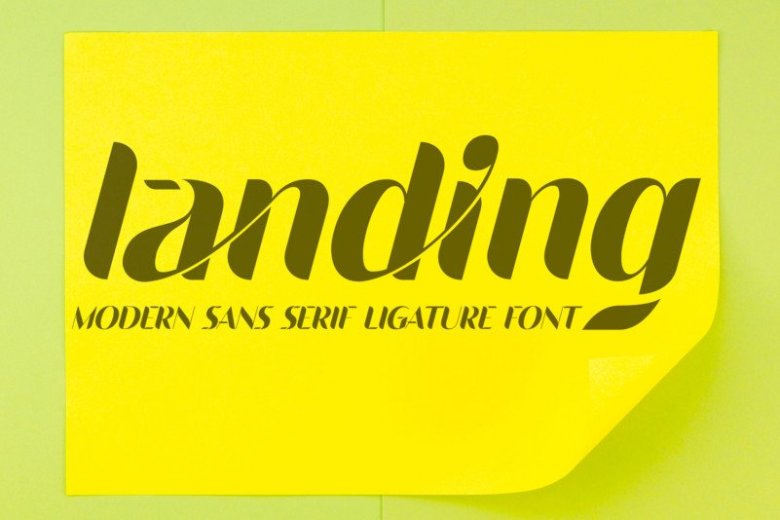
Landing Sans Serif Font
Landing Font is a Ligature Sans Serif Font, it’s a super unique ligature font that you wont forget! It’s a high contrast sans serif that has loads of style. It’s a versatile companion, perfectly usable for a variety of applications. But especially the areas of branding and editorial design. There in particular, the typeface impresses with its look and feel, making the design pleasant and smooth.